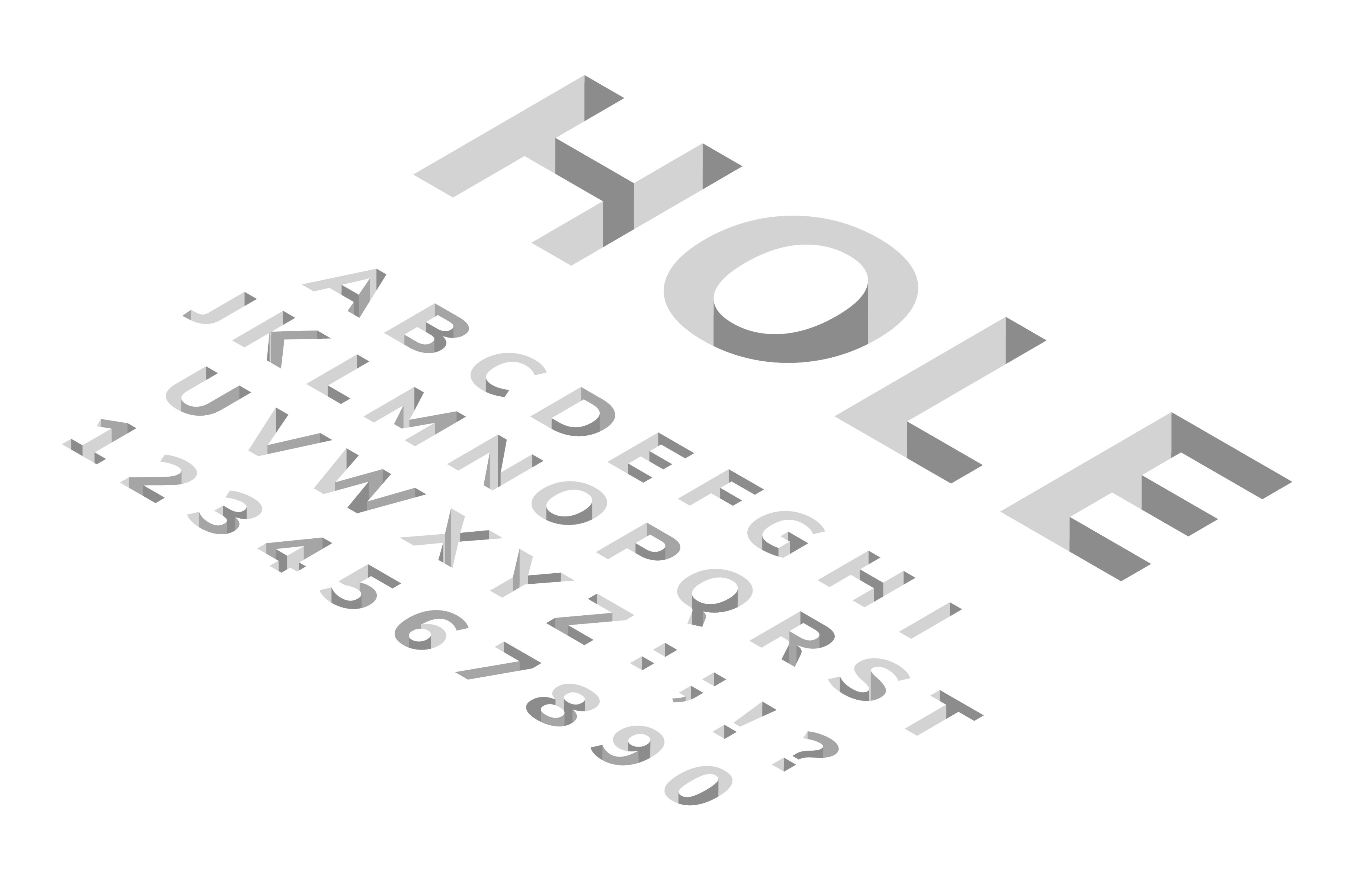
Isometric hole font. 3d perspective alphabet, modern geometric cubic typeface. Deep holes in floor effect letters, numbers, symbols vector set. English or latin lettering, punctuation marks